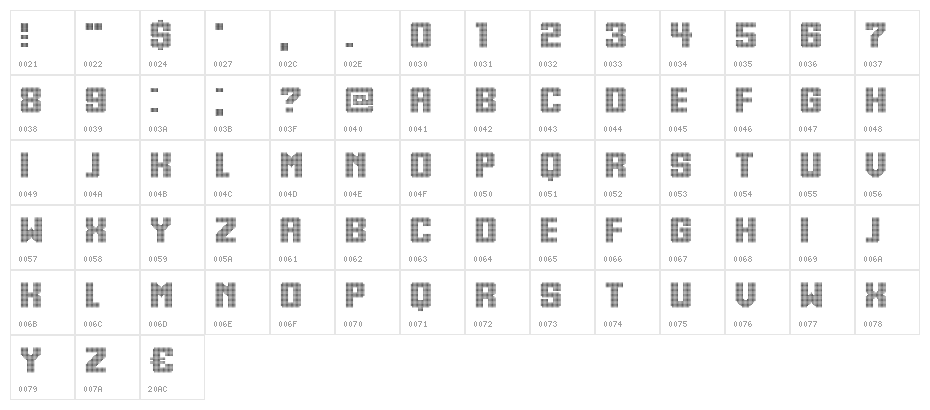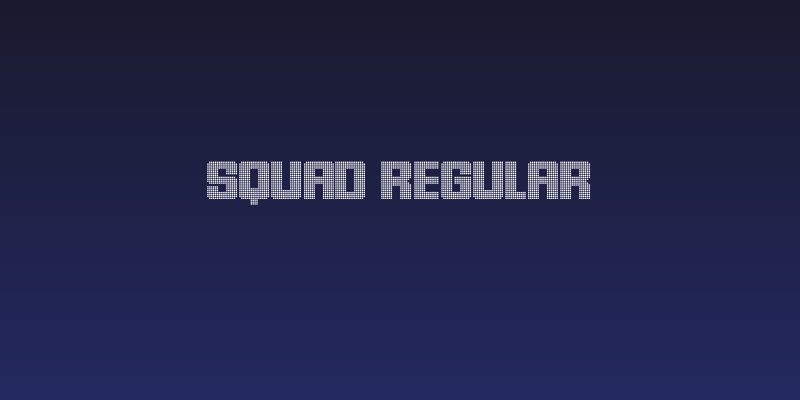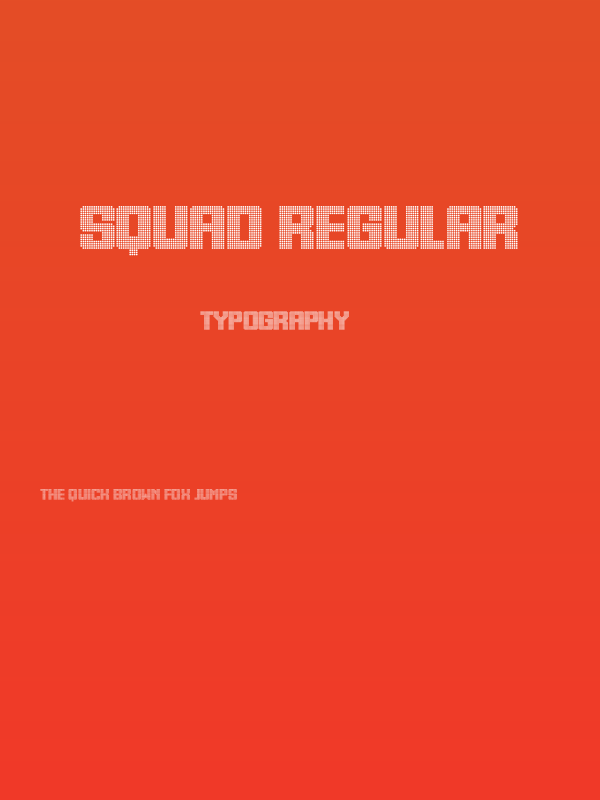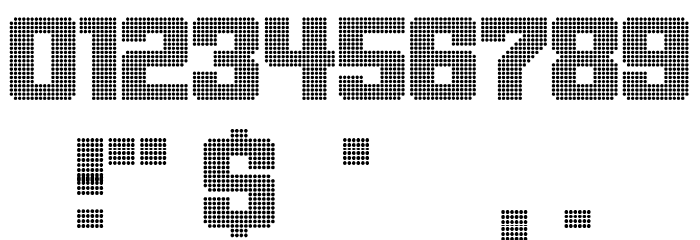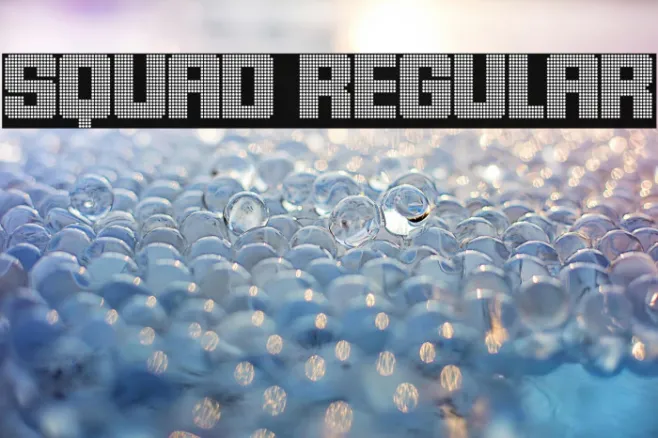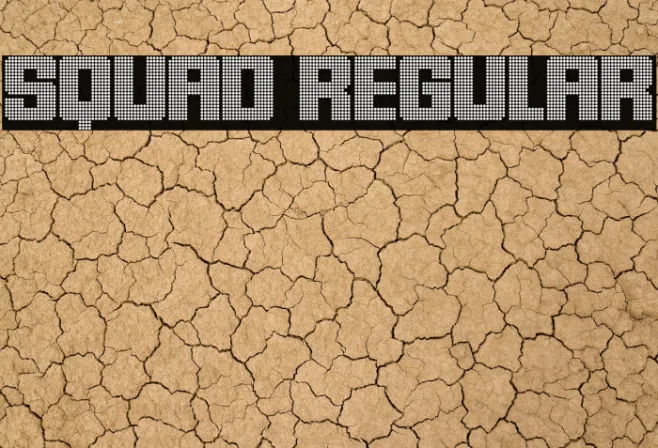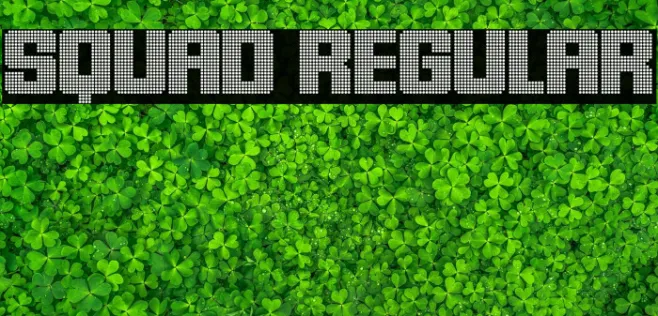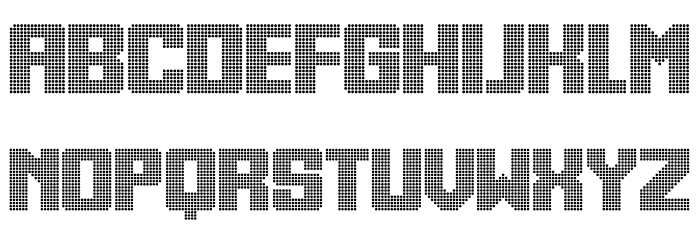
Squad Regular Font
Squad Regular Description
This font features a unique design composed of small, evenly spaced dots forming each character. The geometric structure gives it a digital, modern appearance reminiscent of LED displays or pixel art. Each letter and number is constructed with precision, maintaining a consistent grid pattern that enhances readability while providing a distinct visual style. The uniformity in the dot arrangement creates a cohesive look across all characters, making it suitable for projects that require a futuristic or tech-inspired aesthetic. The font's boldness and clarity ensure it stands out, making it ideal for attention-grabbing headlines or digital interfaces.
| Use Case | Headlines, Digital displays, Tech branding |
| Proposed Projects | Ideal for digital displays, tech branding, futuristic posters, and video game interfaces. |